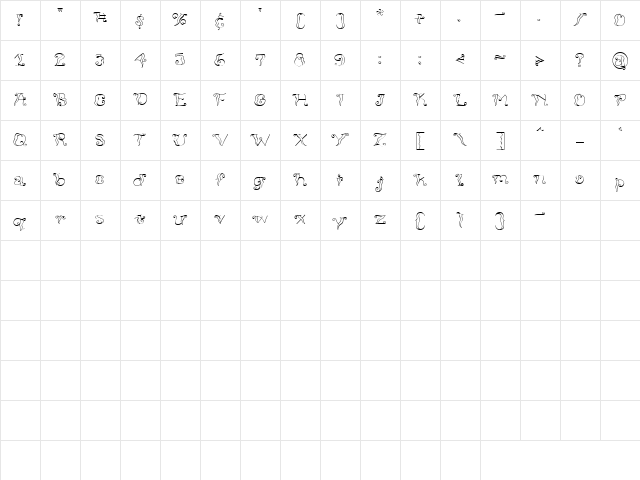
CK Funky Wave Regular
Design Context for CK Funky Wave
CK Funky Wave has an approachable, lighthearted character - its loose, expressive forms are well-suited to children's content, casual branding, and fun-first design.
Font Pairing: Pairs well with a rounded or humanist sans for body copy, maintaining the friendly tone without relying on CK Funky Wave to carry extended reading.
Pro Tip: Use CK Funky Wave at larger display sizes where its expressive character can land. Pair with a clean, simple sans for body copy to maintain readability.